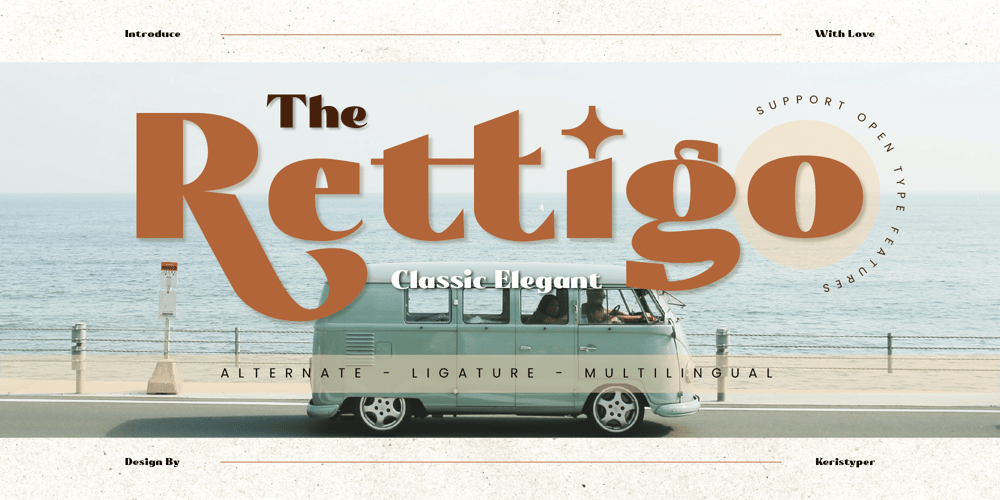
Rettigo Font Family was designed by Tezar Tantular and published by Keristyper Studio. Rettigo contains 1 styles and family package options. Rettigo is a classic and elegant serif font that adds a touch of sophistication to any design. Its timeless style is perfect for creating elegant and refined designs. With its clean lines and stylish curves, Rettigo is sure to make your designs stand out. Use it for anything from logos and branding to editorial design and invitations. Get Rettigo today and elevate your design game!Featured: Standard, Uppercase & Lowercase Numeral & Punctuation Multilingual : ä ö ü Ä Ö Ü ß ¿ ¡ Alternate & Ligature PUA encoded We recommend programs that support the OpenType feature and the Glyphs panel such as Adobe applications or Corel Draw, so you can use all the variations of the glyphs.Hope you enjoy our fonts!